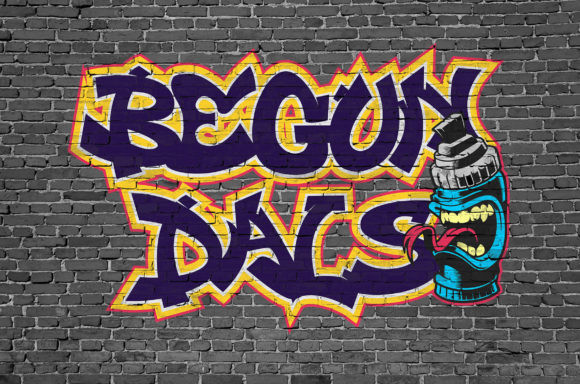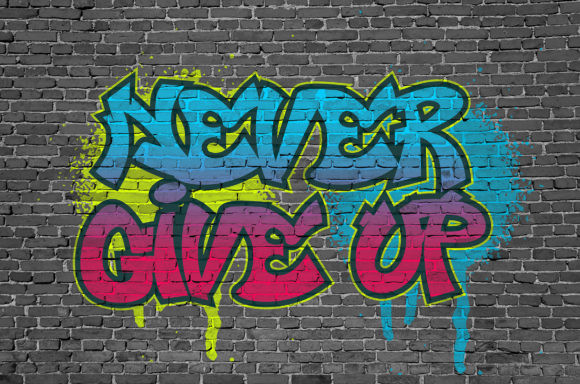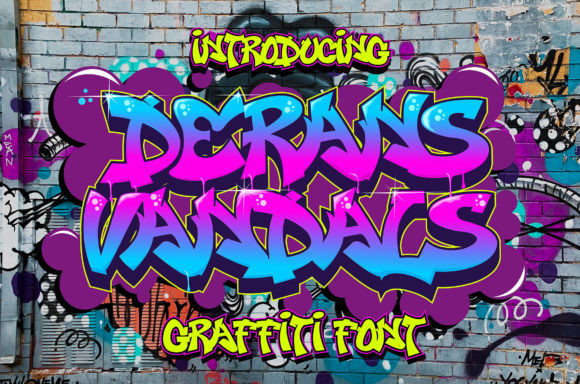
Derans Vandals Font
Derans Vandals Font is an awesome, graffiti-styled display font that has a street art vibe. This font is suitable for designs such as t-shirts, sportswear, logos, advertisements, clothing, and more.